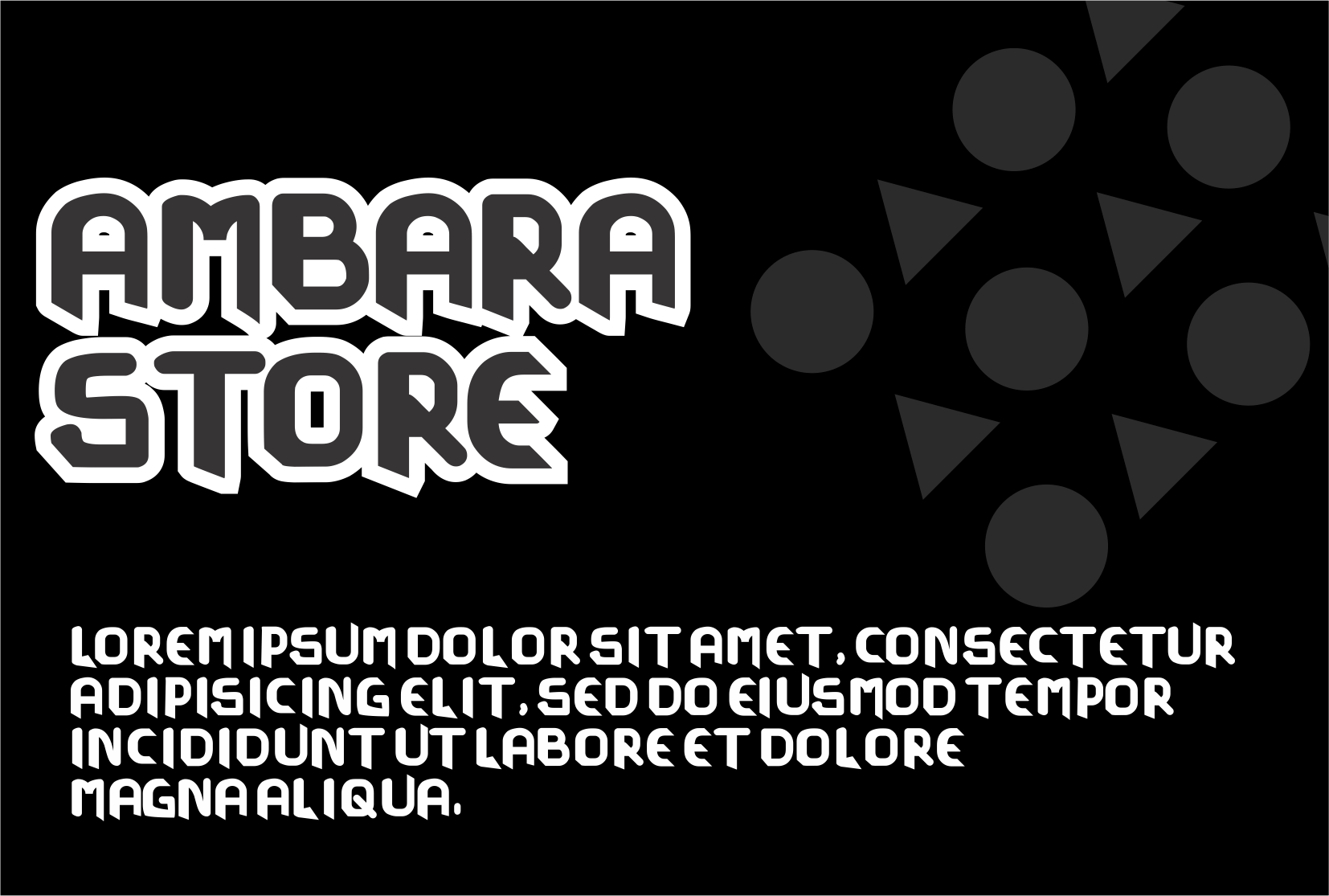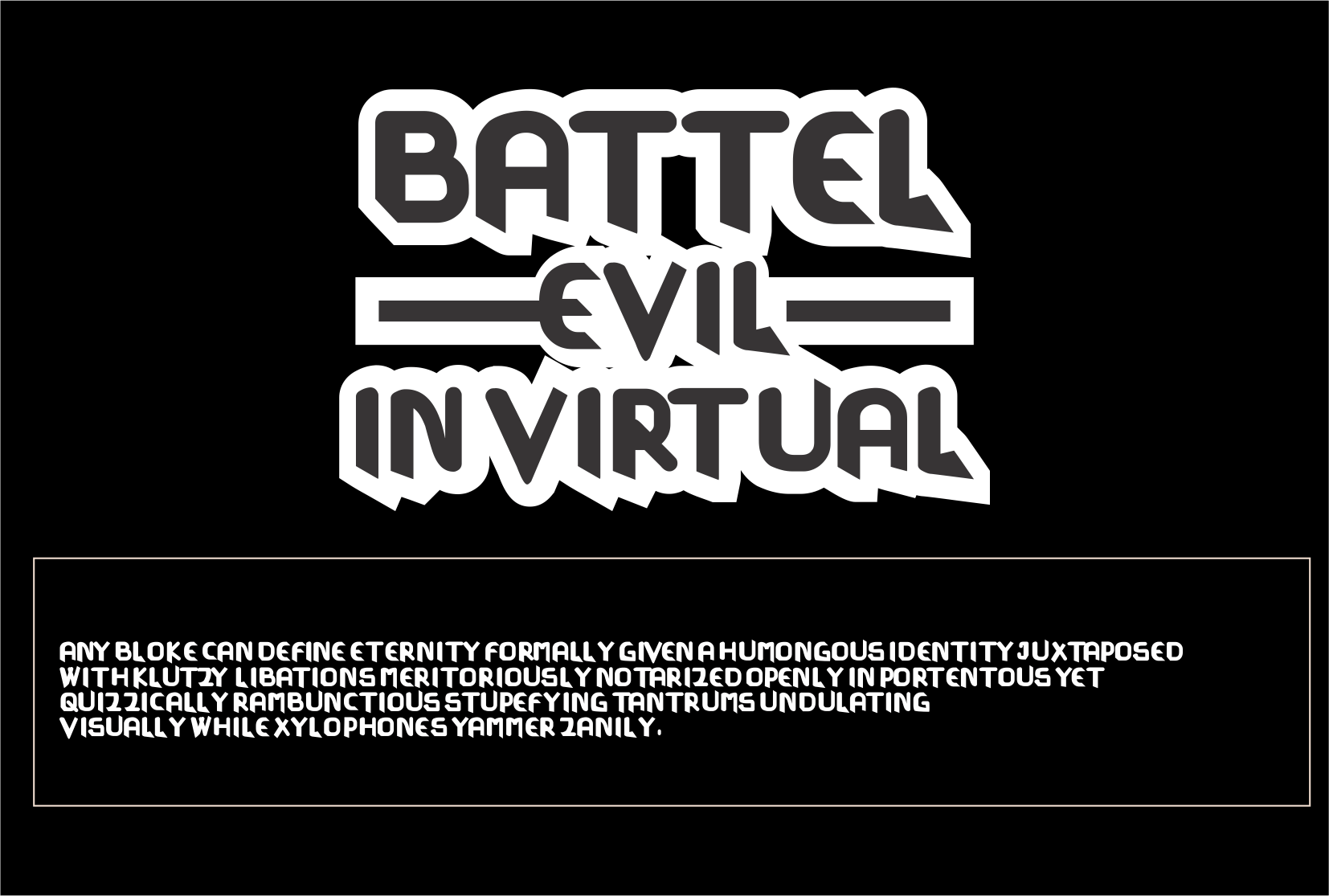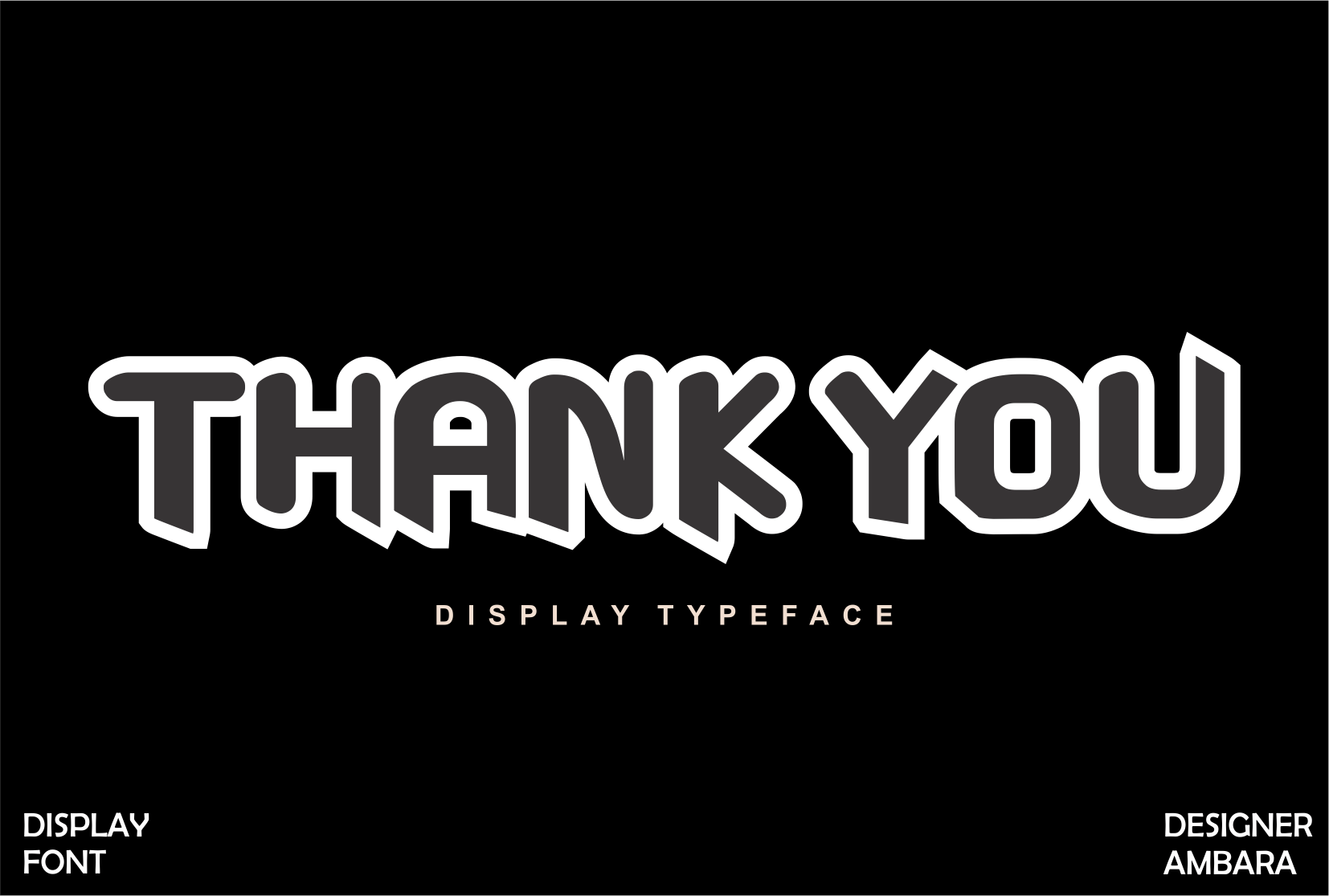
Combat Combo Display Font
It’s a modern display font perfect for any project you wish to create. Its bold style will give your work the confidence it needs. Add it to your favorite designs, and notice how it makes them stand out!